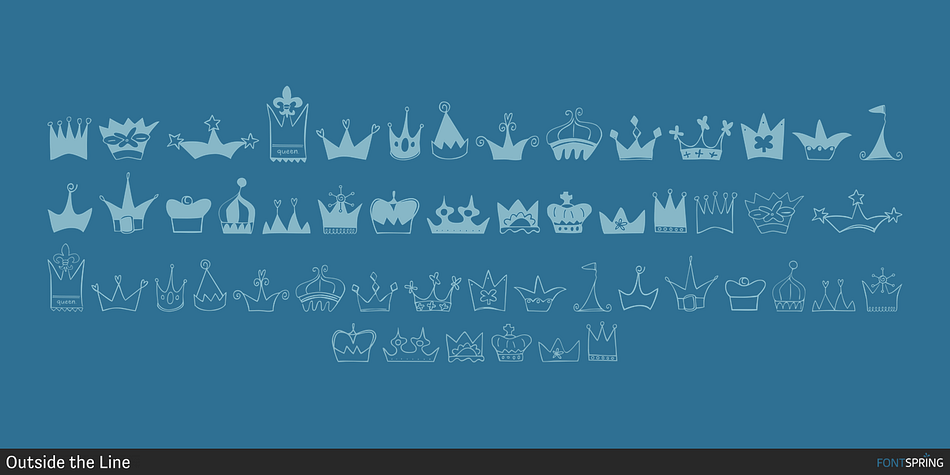
Crowns is a dingbat font published by Outside the Line.
Crowns for Queens. Crowns for Kings. Royal crowns, regal crowns, party crowns, cute crowns, fairy princess crowns, hearts & swirls crowns. This font has them all.
26 outline crowns and those same crowns filled in to give you more to choose from.